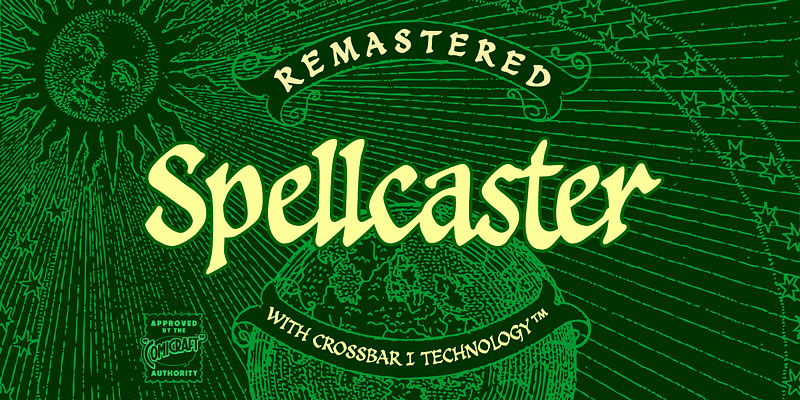
CC Spellcaster Font Free Download is a unique, mystical script typeface inspired by magical themes and fantasy storytelling. With its flowing, whimsical letterforms and delicate flourishes, this font is perfect for projects related to fantasy, adventure, magic, or the supernatural, such as book covers, posters, branding, and social media graphics.
CC Spellcaster Font Free Download features elegant curves and dramatic styling that give it a magical, otherworldly feel, making it ideal for designs with a fantasy or fairytale vibe. Whether you're designing for a magical brand, creating event invitations for fantasy-themed gatherings, or crafting book titles for mystical tales, this font adds a sense of enchantment and mystery.
The font pairs well with more understated fonts for contrast, allowing the whimsical nature of CC Spellcaster to stand out in your designs.